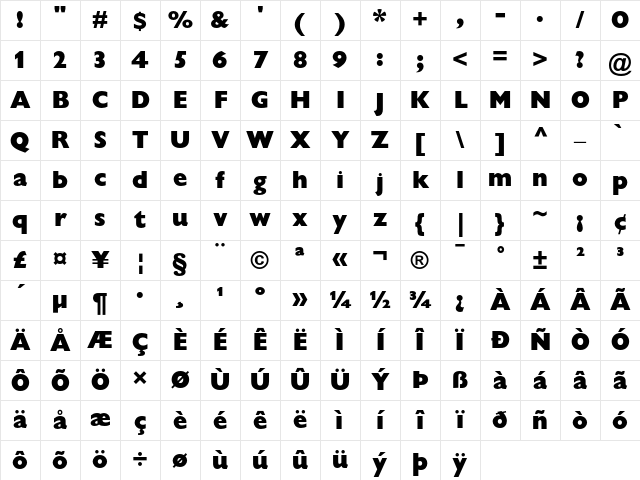
Gill Sans Extra Bold Display
Style: Extra Bold Display
Design Context for Gill Sans
Gill Sans is built around its visual character rather than neutral utility - its distinctive forms are designed to make an impression at display sizes. Its bold stroke weight gives it real presence on the page.
Font Pairing: Pair with a clean neutral sans-serif for body copy to let Gill Sans's character lead without overwhelming the composition.
Pro Tip: Use Gill Sans exclusively at display sizes - it was designed to be seen, not read at length. Let a neutral companion handle body copy.